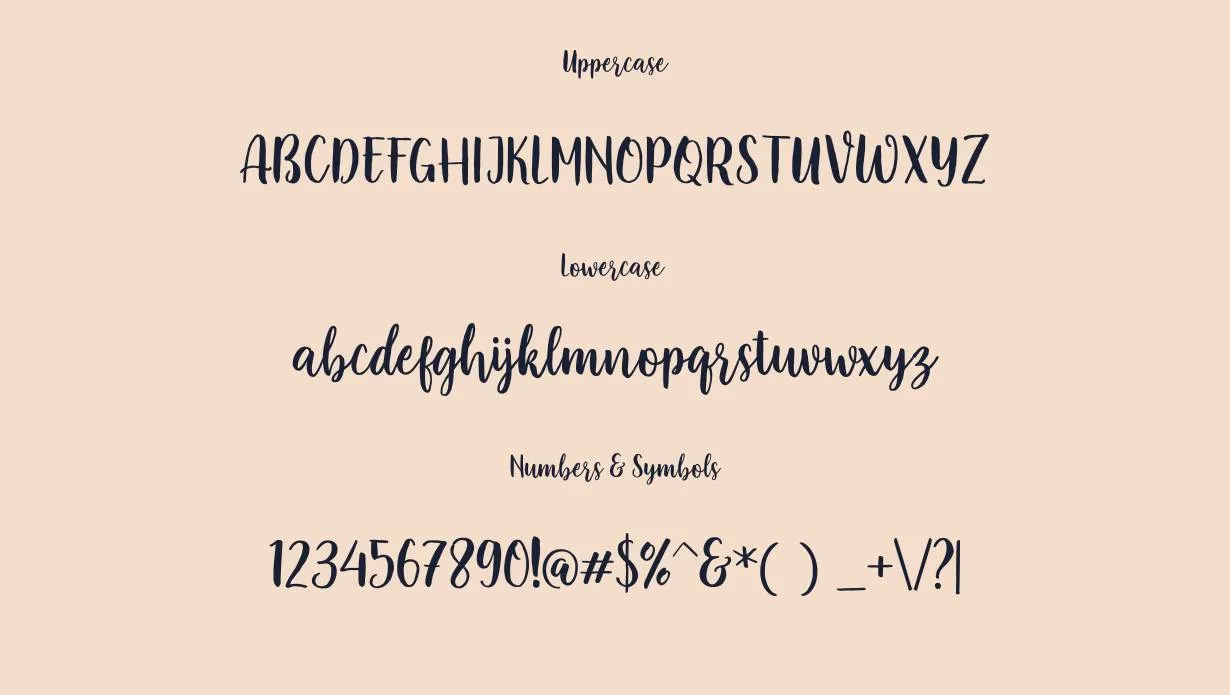
Faradisa font stands out with its bold and artistic characteristics, often favored for eye-catching headlines, banners, or logo designs.
Its unique style adds a striking and memorable visual impact to text, making it a popular choice in creative projects and modern branding initiatives.
| Name | Faradisa Font |
| Designer | Fajar Gunawan |
This font infuses a sense of individuality and captivation into design elements, drawing attention to the content it portrays.